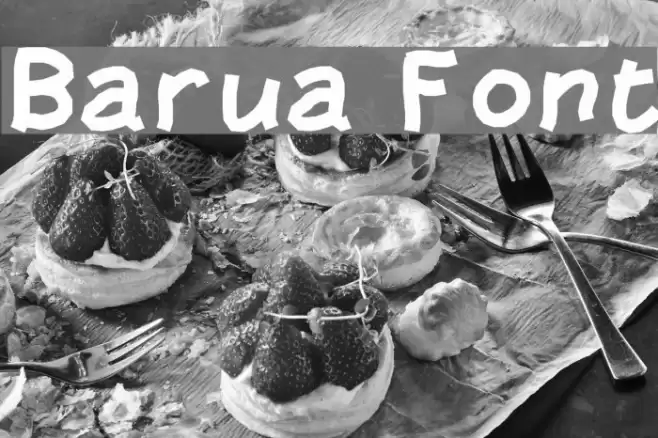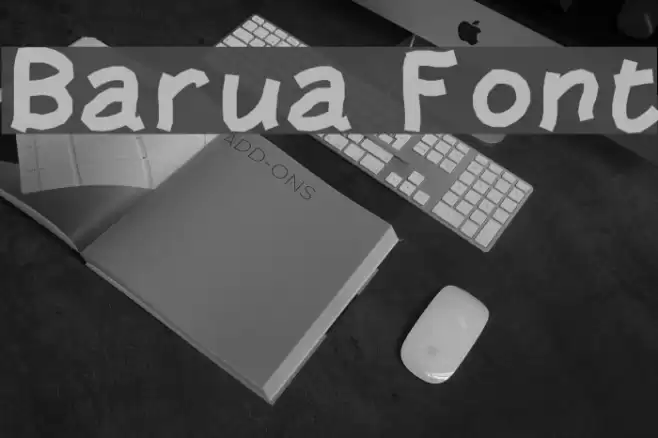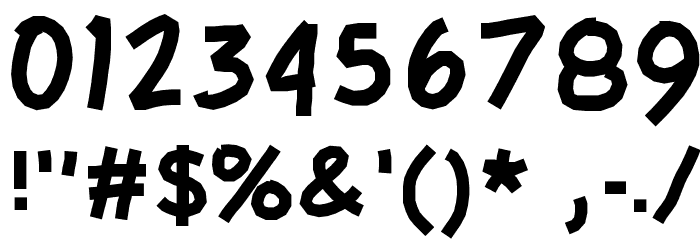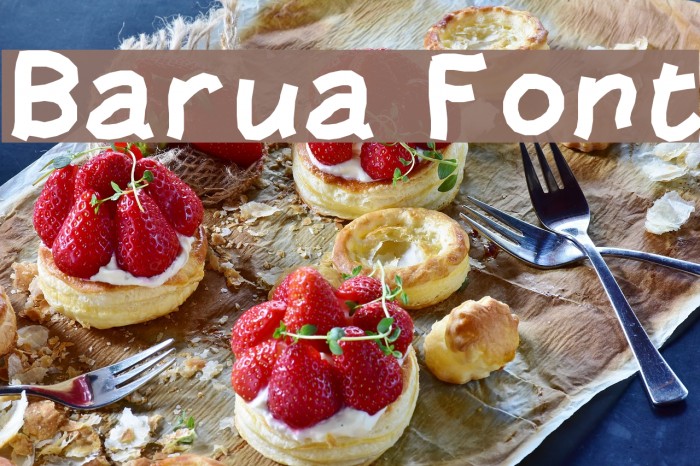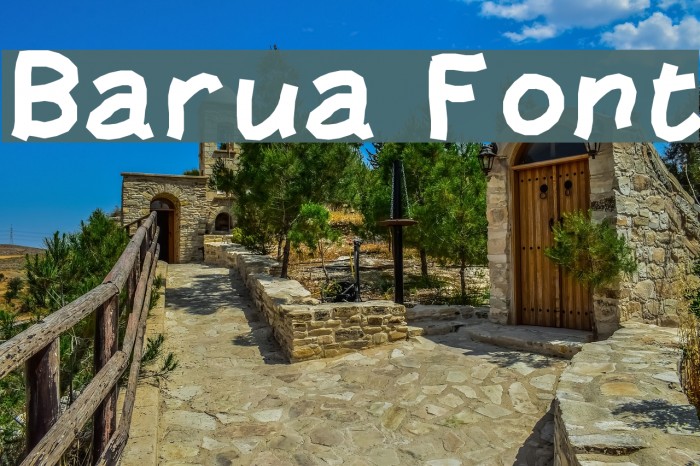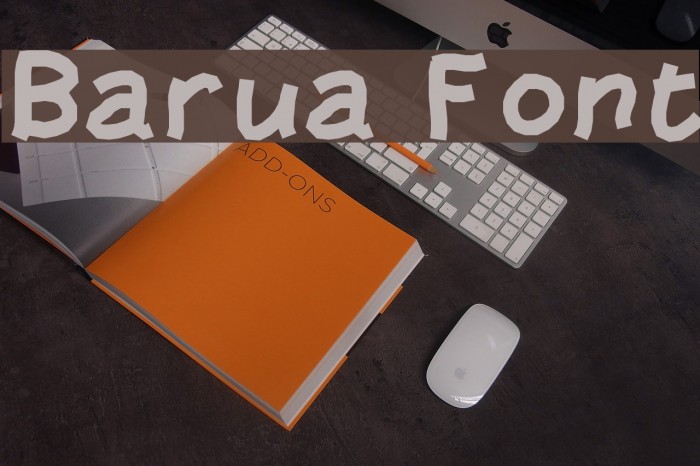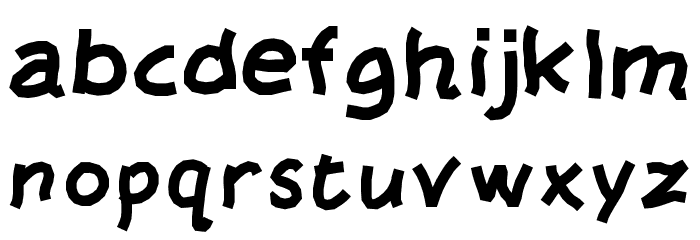
Barua Font
Barua Description
This font features a bold and dynamic style with a hand-drawn appearance, characterized by irregular and slightly jagged edges that give it a unique, artistic flair. The uppercase and lowercase letters maintain a consistent height, while the numbers and special characters are crafted with the same playful and informal aesthetic. The overall design is reminiscent of a casual, handwritten script, making it ideal for projects that require a personal touch. Its distinctive look is both eye-catching and approachable, suitable for a variety of creative applications.
A bold, hand-drawn font with an artistic and playful style from Uncategorized fonts.
- Proposed Projects: Ideal for children's book covers, creative posters, casual branding, and artistic invitations.